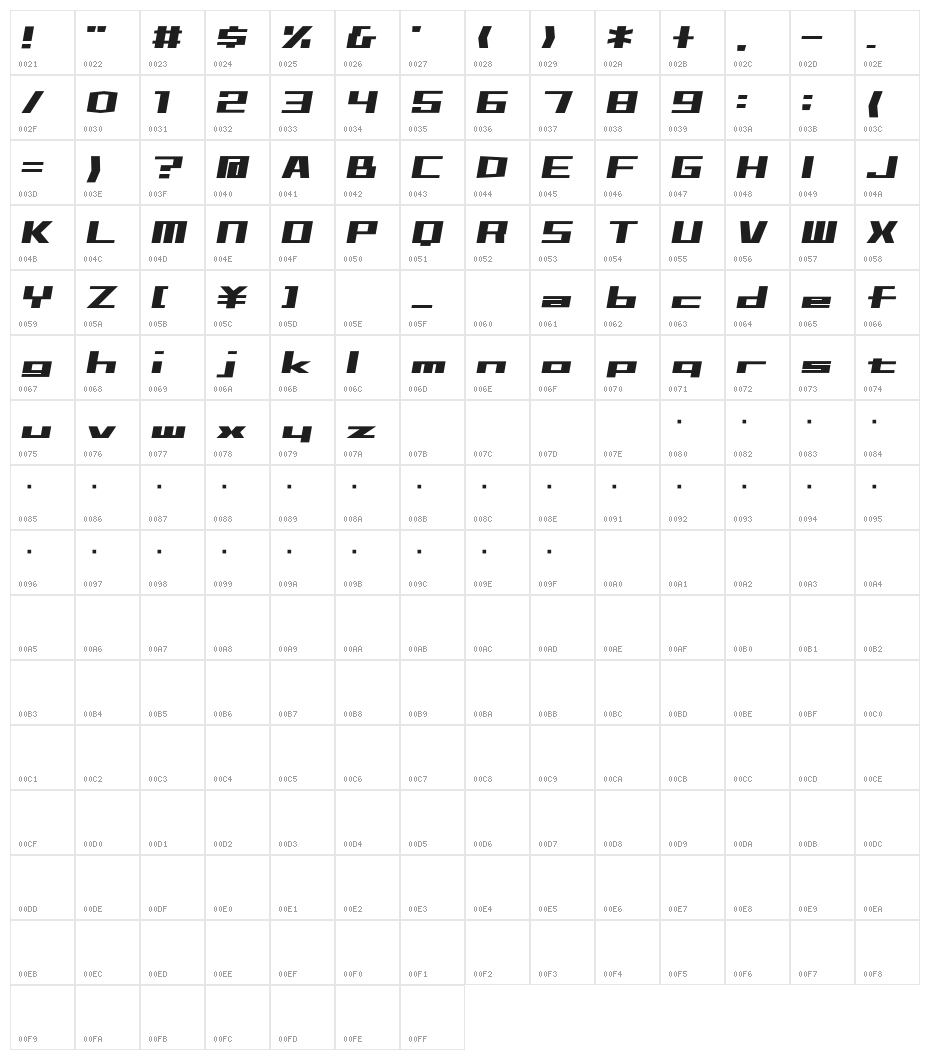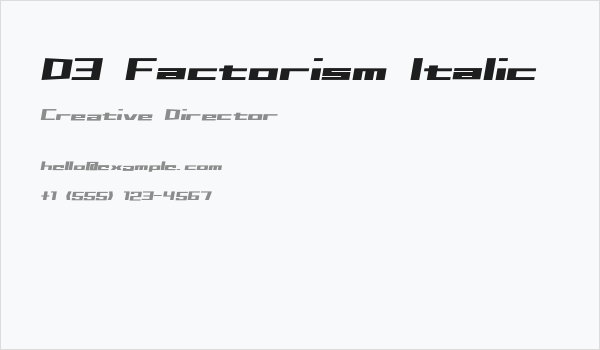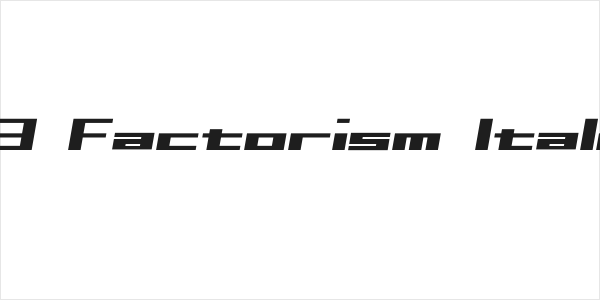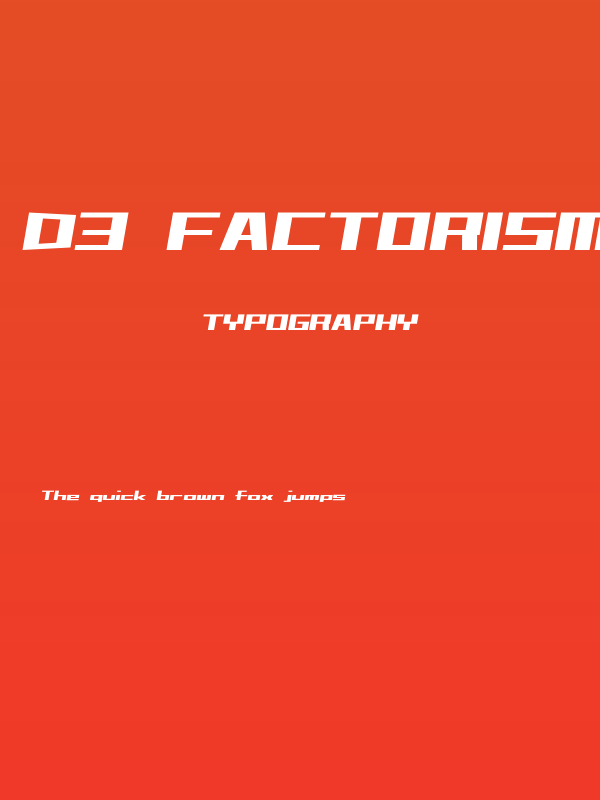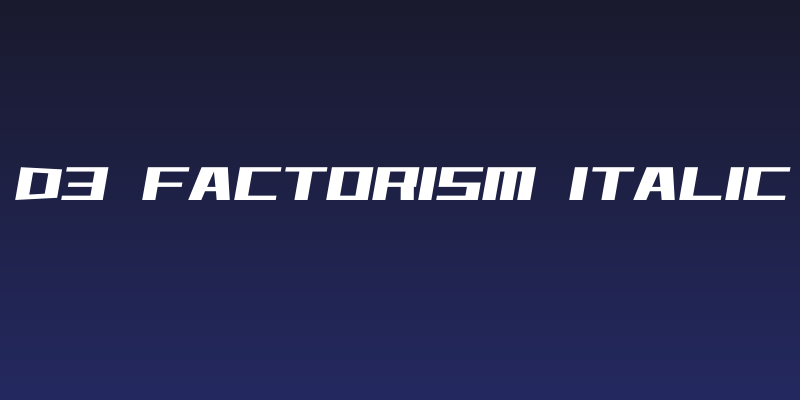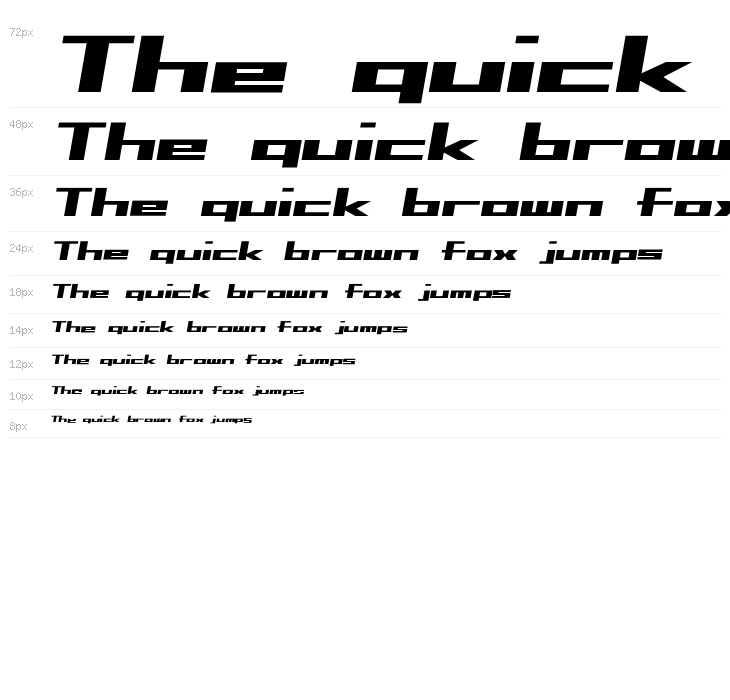
D3 Factorism Italic Font
D3 Factorism Italic Description
This font features a bold and dynamic style with a futuristic flair. The characters are angular and geometric, with a distinct slant that gives them a sense of motion and speed. The uppercase and lowercase letters maintain a consistent design, emphasizing sharp edges and clean lines. Numbers and special characters follow the same aesthetic, ensuring uniformity across all text elements. The overall appearance is modern and edgy, making it suitable for projects that require a strong visual impact.
| Proposed Projects | Ideal for sci-fi themed designs, technology branding, video game titles, and modern advertising campaigns. |